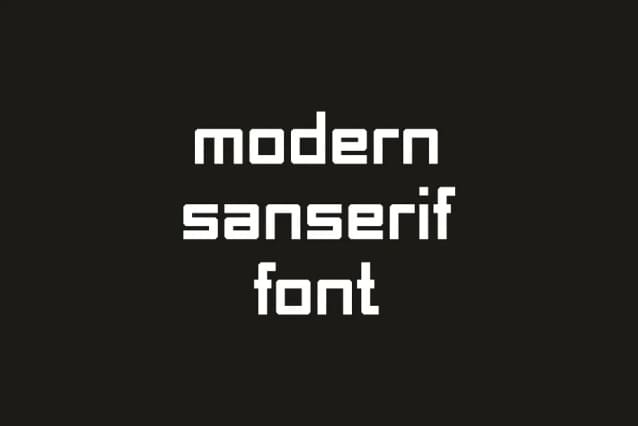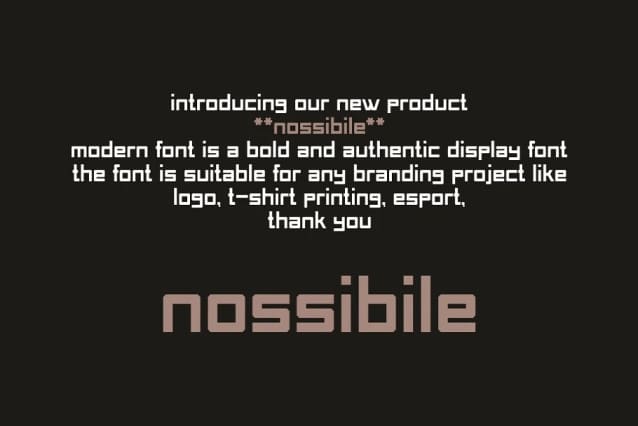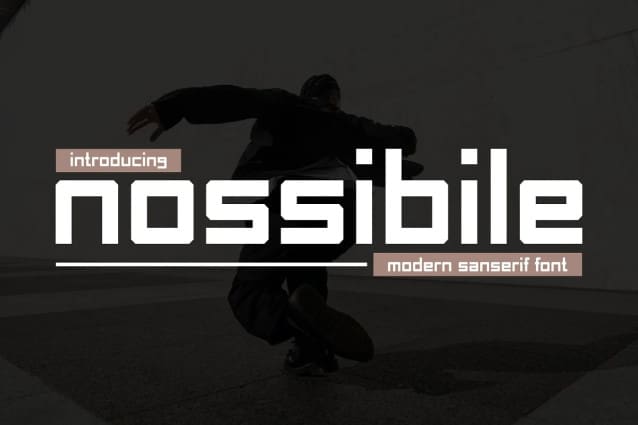
Nossibile Font
Nossibile Font – Modern Font is a bold and authentic display font. The font is suitable for any branding project like logo, esport, and many more. outstanding in a wide range of contexts.